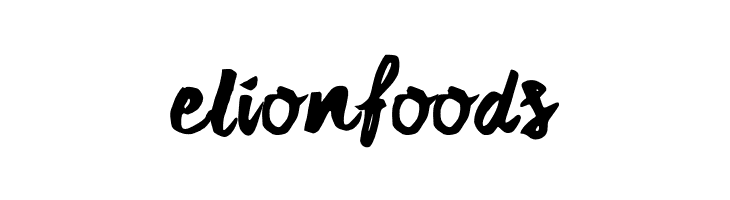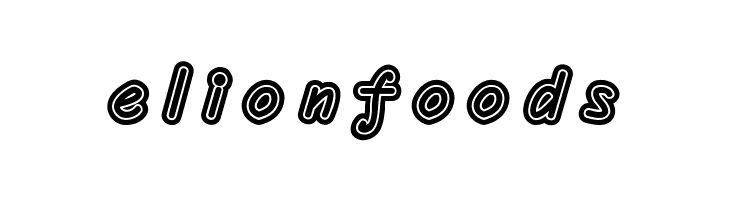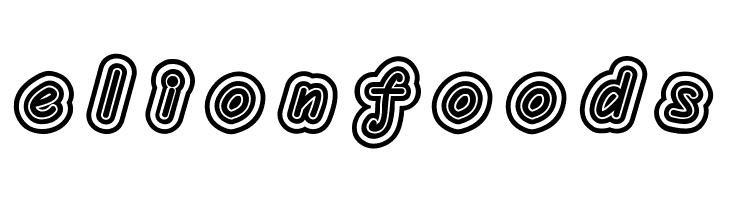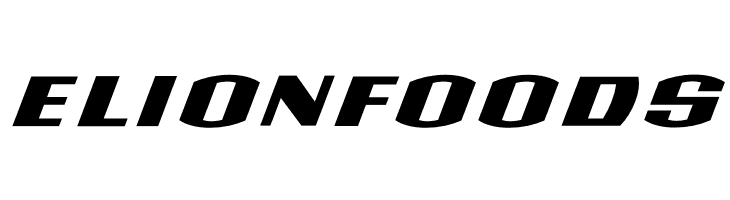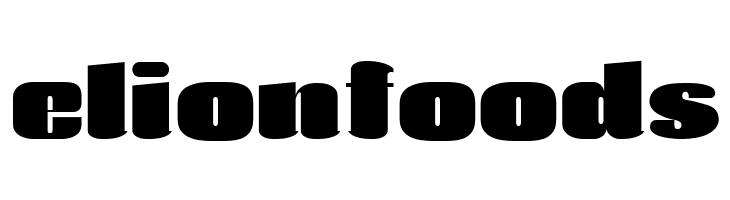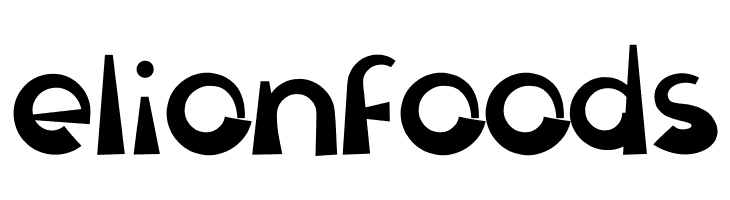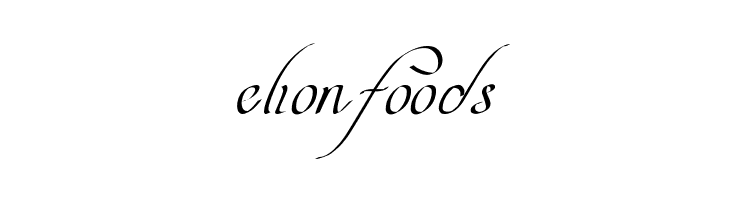
( Fonts by Lorenzowy )
A bold, expressive handwritten font with dynamic strokes and a playful style.
( Adriyal Sutrinanda )
A bold, outlined font with a playful and dynamic style.
( Adriyal Sutrinanda )
A bold, playful font with a layered, three-dimensional outline.
( Andrew Bertram )
A bold, italicized font with a dynamic and modern style.
( Fernando Carvente - serifchocolate.com )
A bold, heavy font with a modern and impactful design.
( Haslinda Adnan - Kak Alin - alinscartoon.blogspot.my/ )
A playful and whimsical font with bold, irregular shapes and dynamic strokes.
( Jair Andrade )
An elegant script font with fluid, cursive strokes and delicate flourishes.